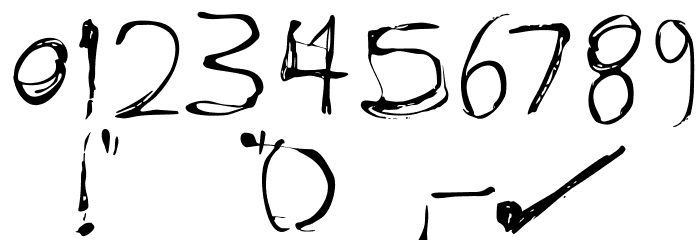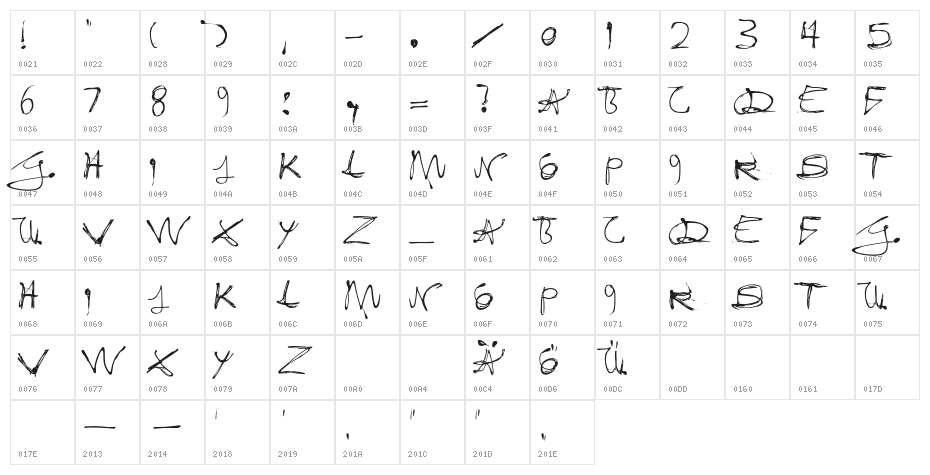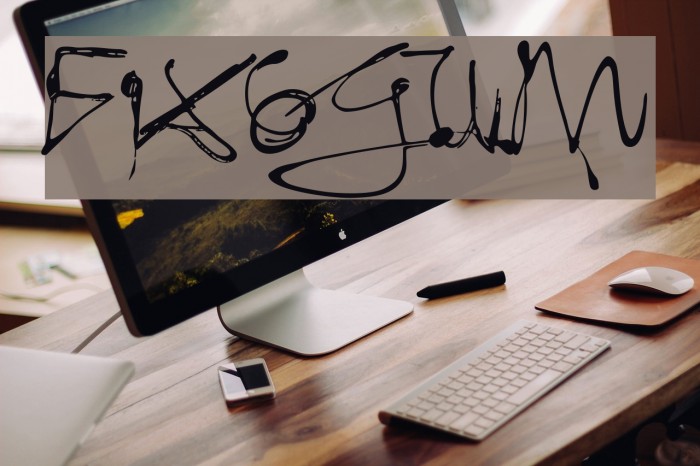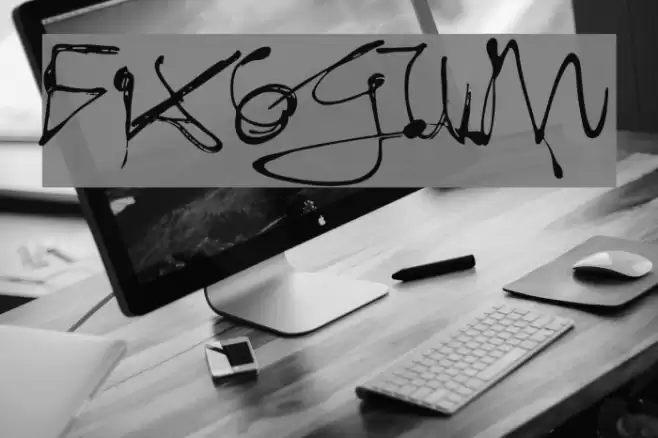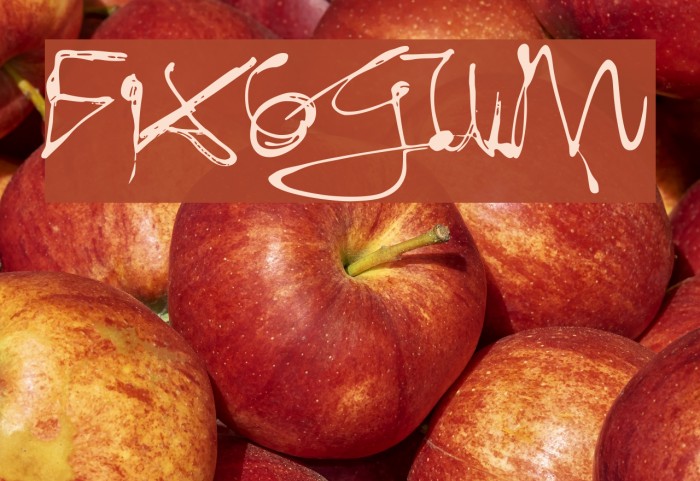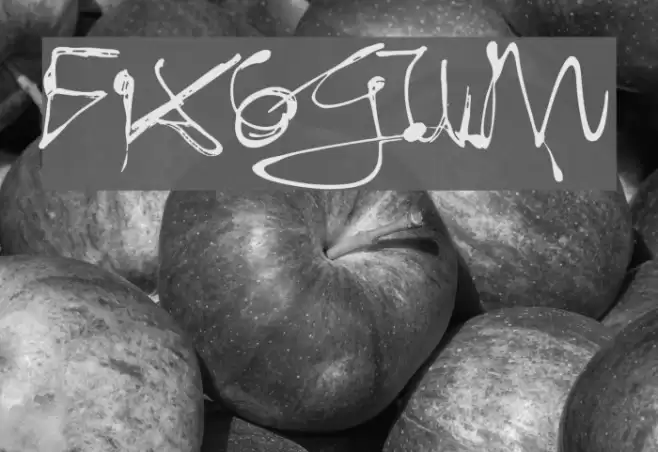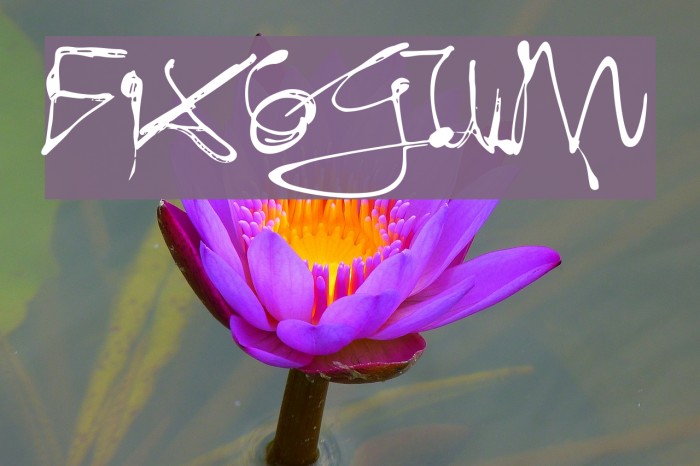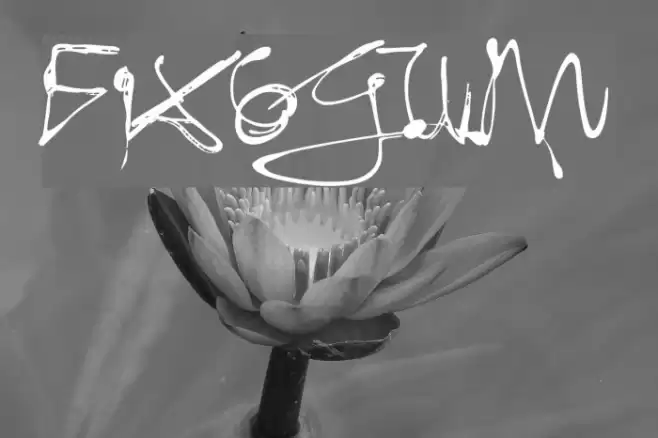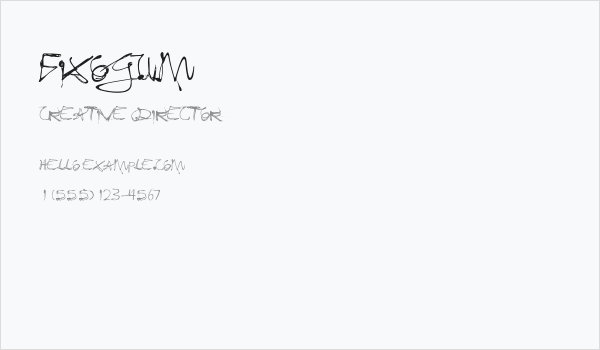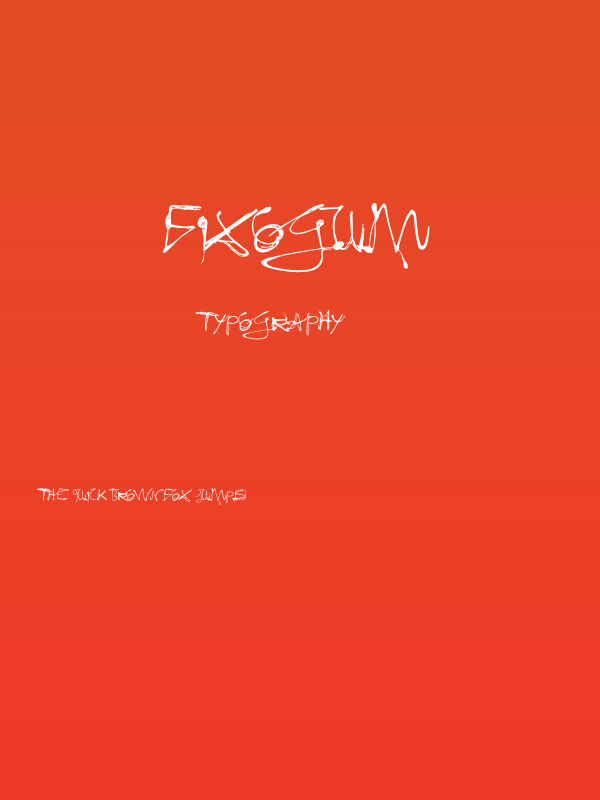
Fixogum Font
Fixogum Description
This font features a dynamic and expressive style, characterized by its bold, brush-like strokes that convey a sense of movement and energy. The letters are irregular and slightly chaotic, with varying thicknesses that give it a hand-drawn appearance. The uppercase and lowercase letters maintain a consistent style, with exaggerated curves and sharp angles that create a visually striking effect. The numbers and special characters follow the same artistic approach, making the font suitable for creative and unconventional designs. Its unique style is perfect for projects that require a bold and artistic touch.
| Use Case | Headlines, Logos, Artistic projects |
| Proposed Projects | Ideal for artistic posters, album covers, graffiti art, and creative branding projects. |